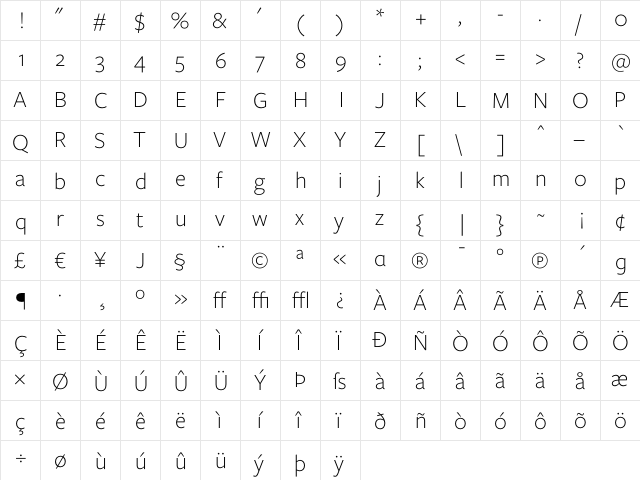
Freight Sans Light
| Foundry | Joshua Darden & Phil's Fonts, Inc |
| Designer | Joshua Darden |
Design Context for Freight Typeface
Freight takes a measured approach to typography — its balanced proportions and neutral character make it a reliable workhorse for both digital and print work. The delicate stroke weight brings airiness and refinement to layouts.